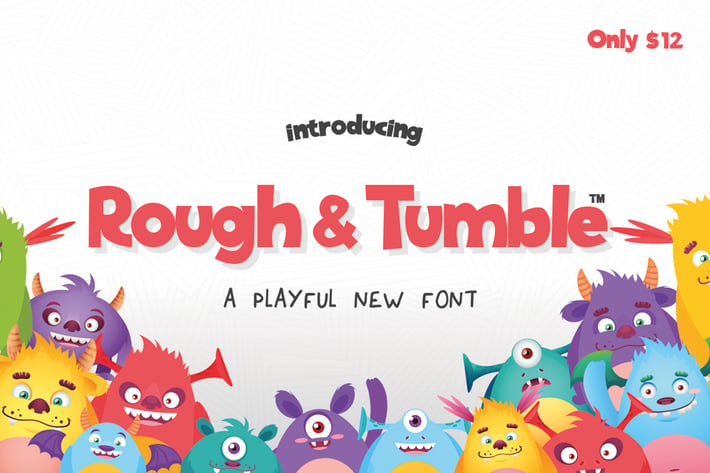
Rough & Tumble Font
Rough and Tumble is an energetic new font. Fun and happy, it will lift your designs and add a cheeky touch. Perfect for kids books, cute quotes and so much more!